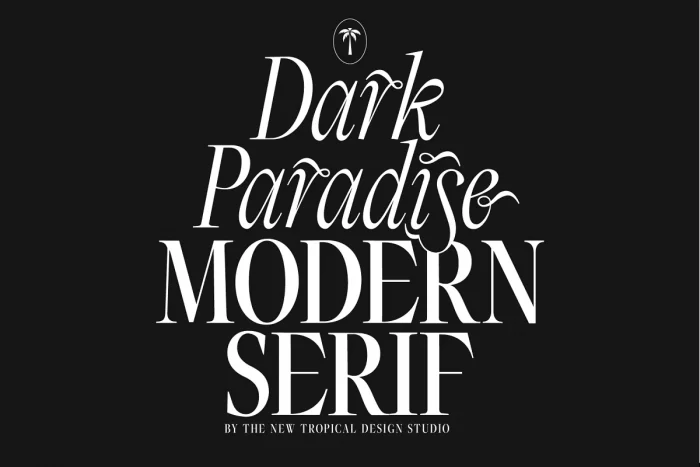
Dark Paradise is a modern serif typeface. A strong edgy serif contrasts with an elaborate ornate italic case to create a beautiful typographic juxtaposition. The ornate italic case has many additional alternates to create unique designs.
- Full italic case with ornate alternates